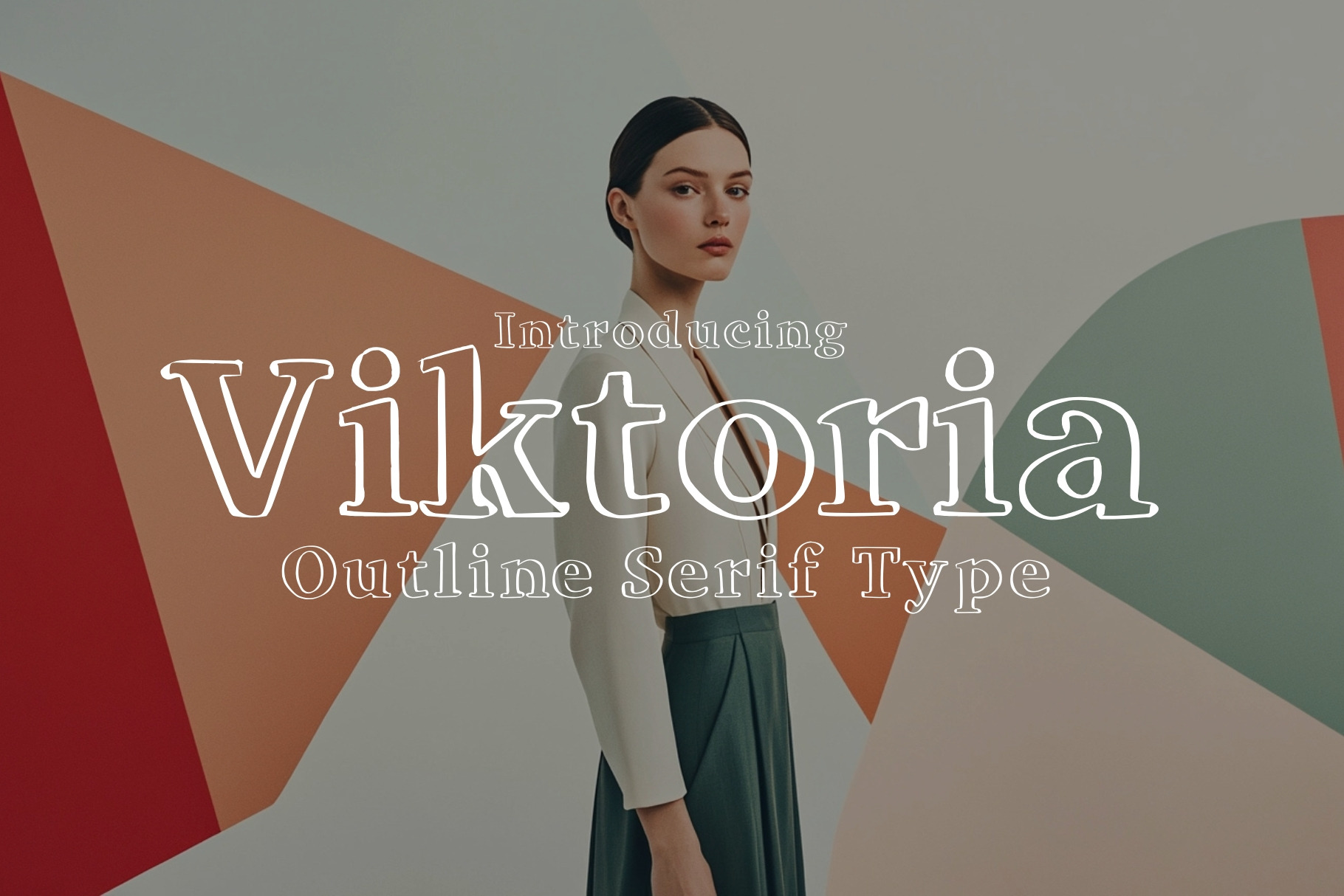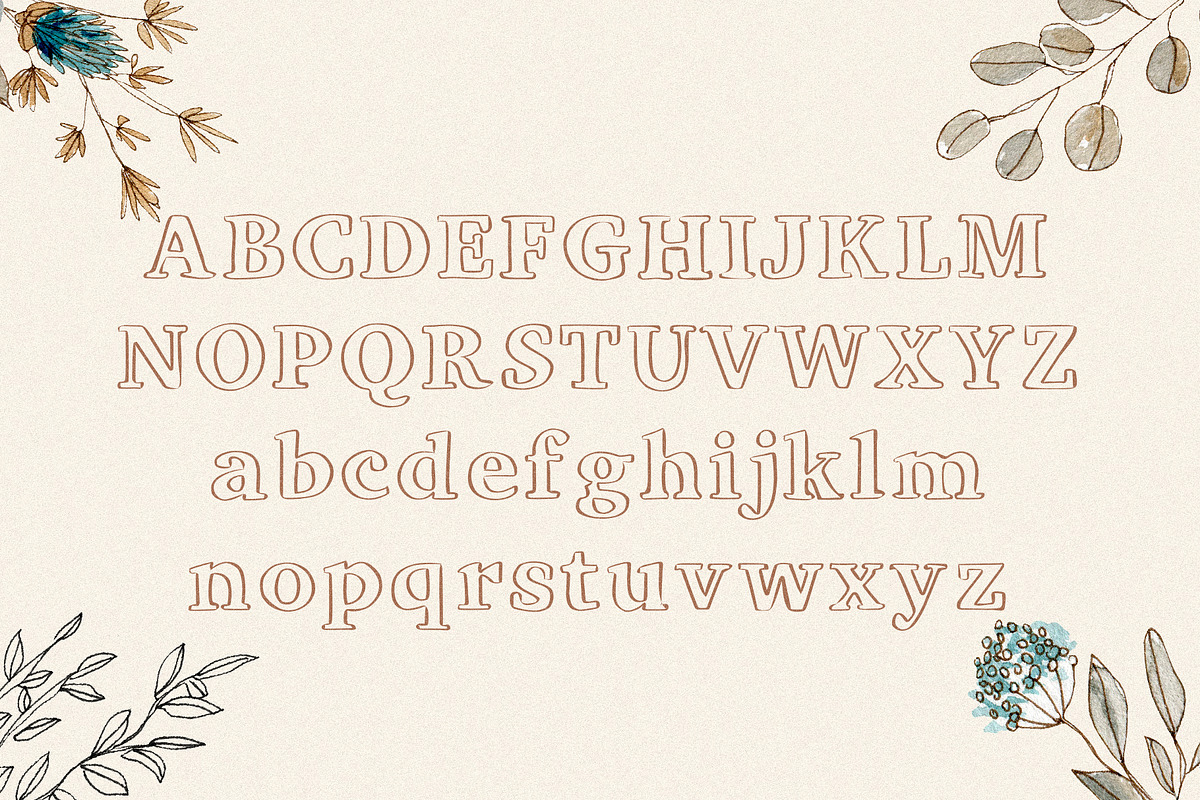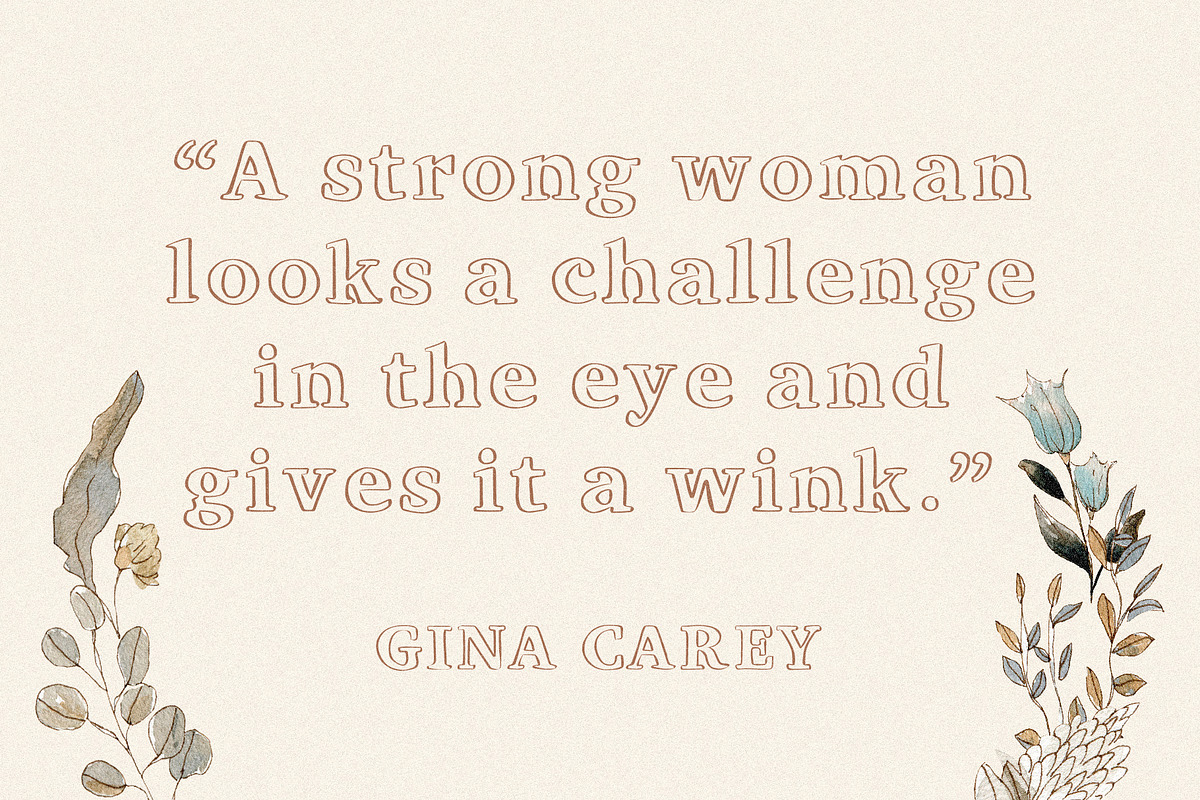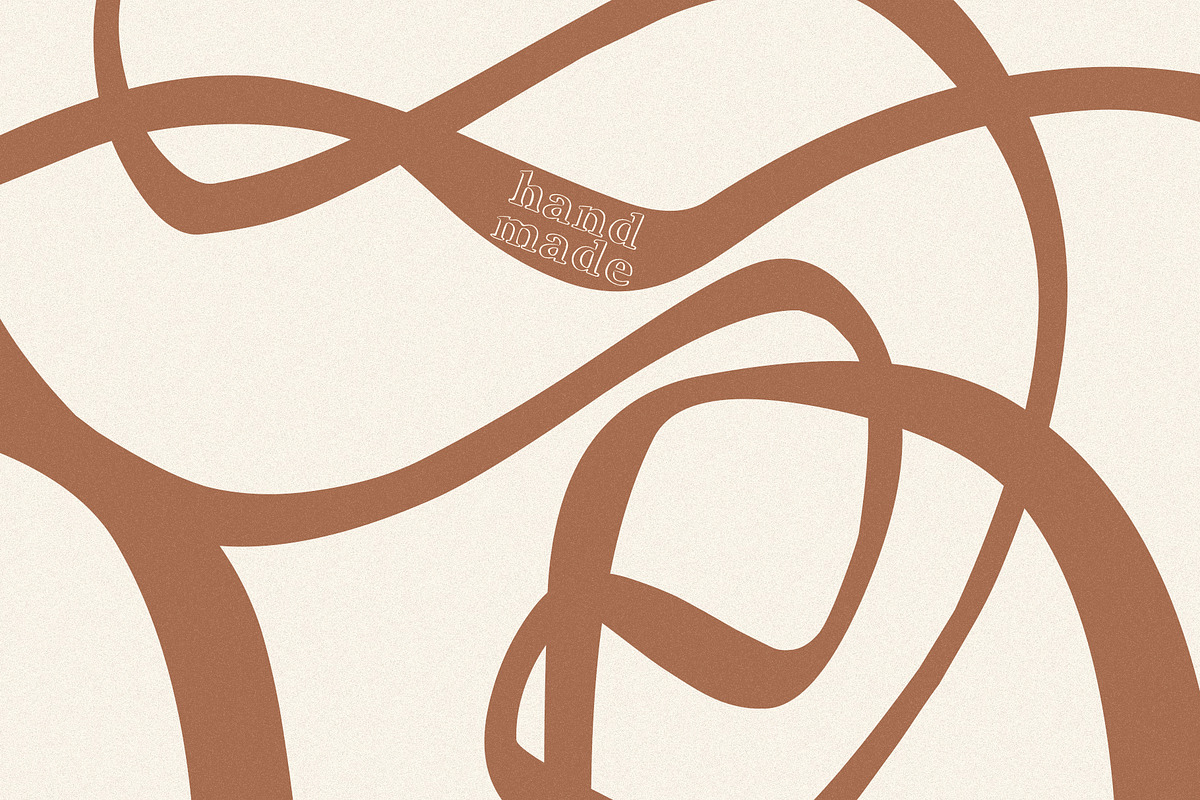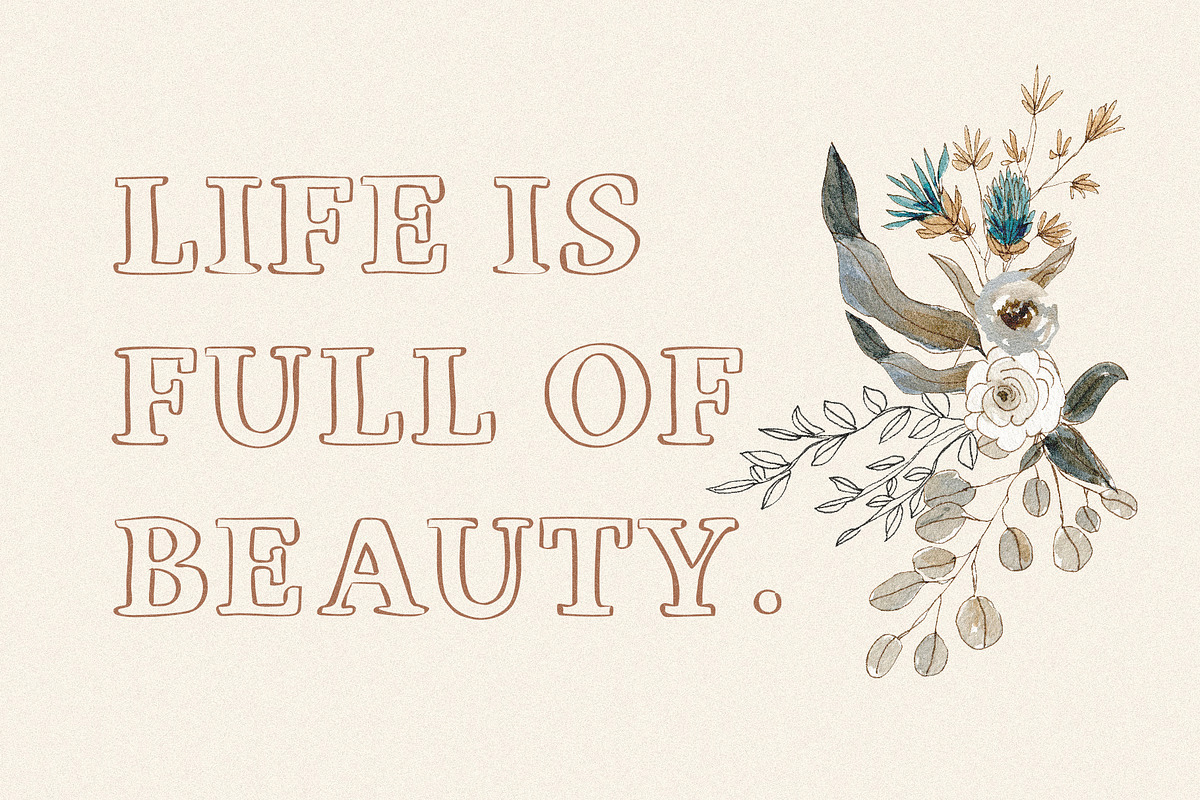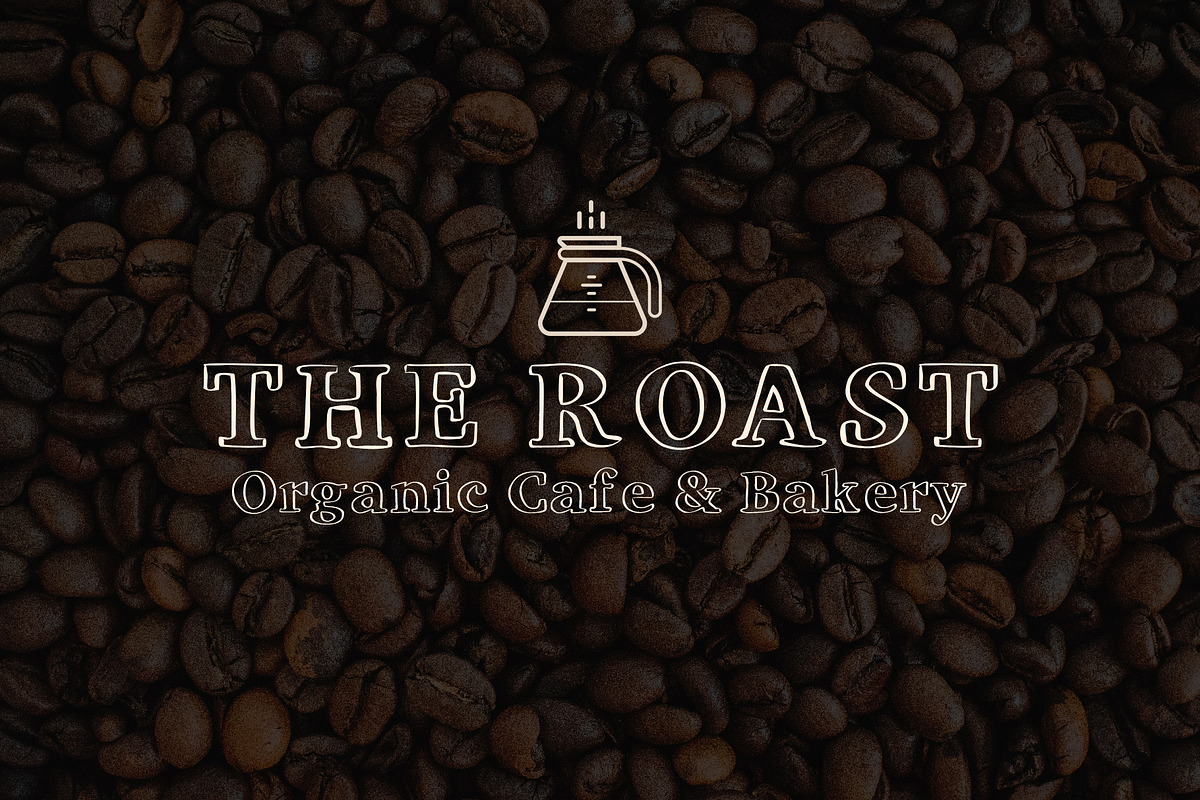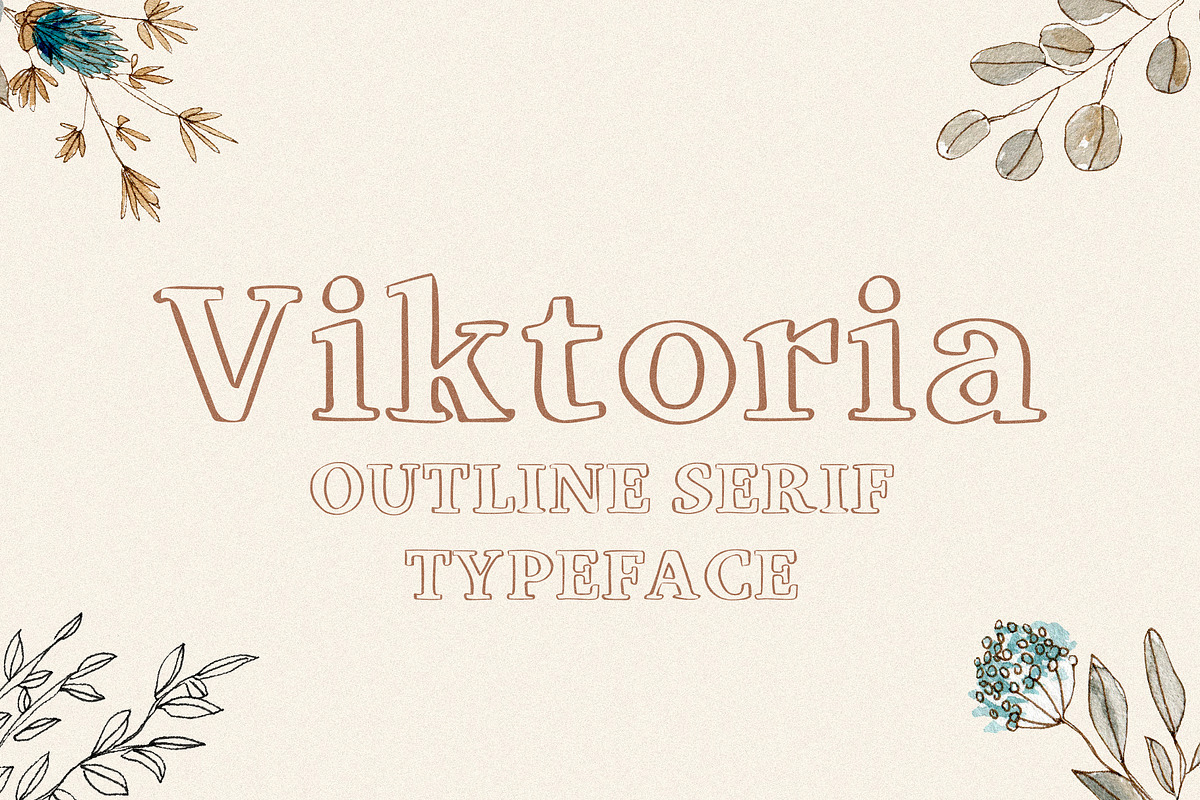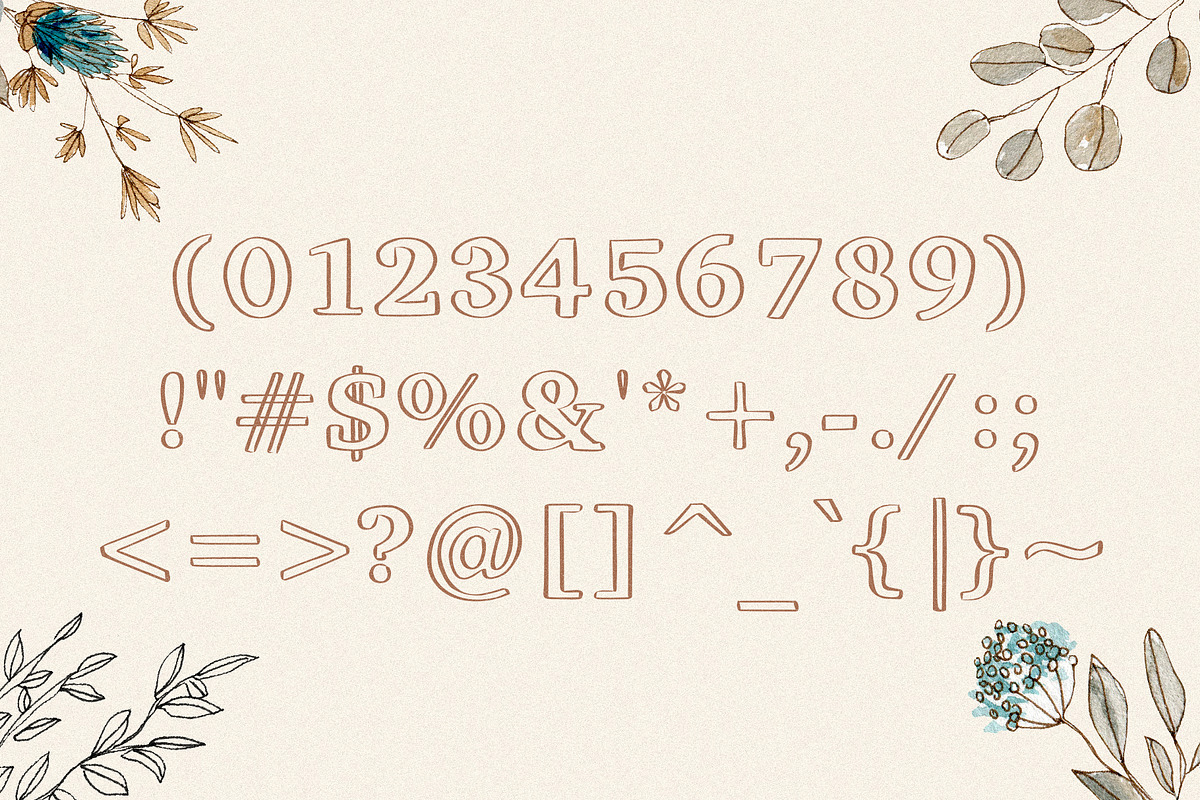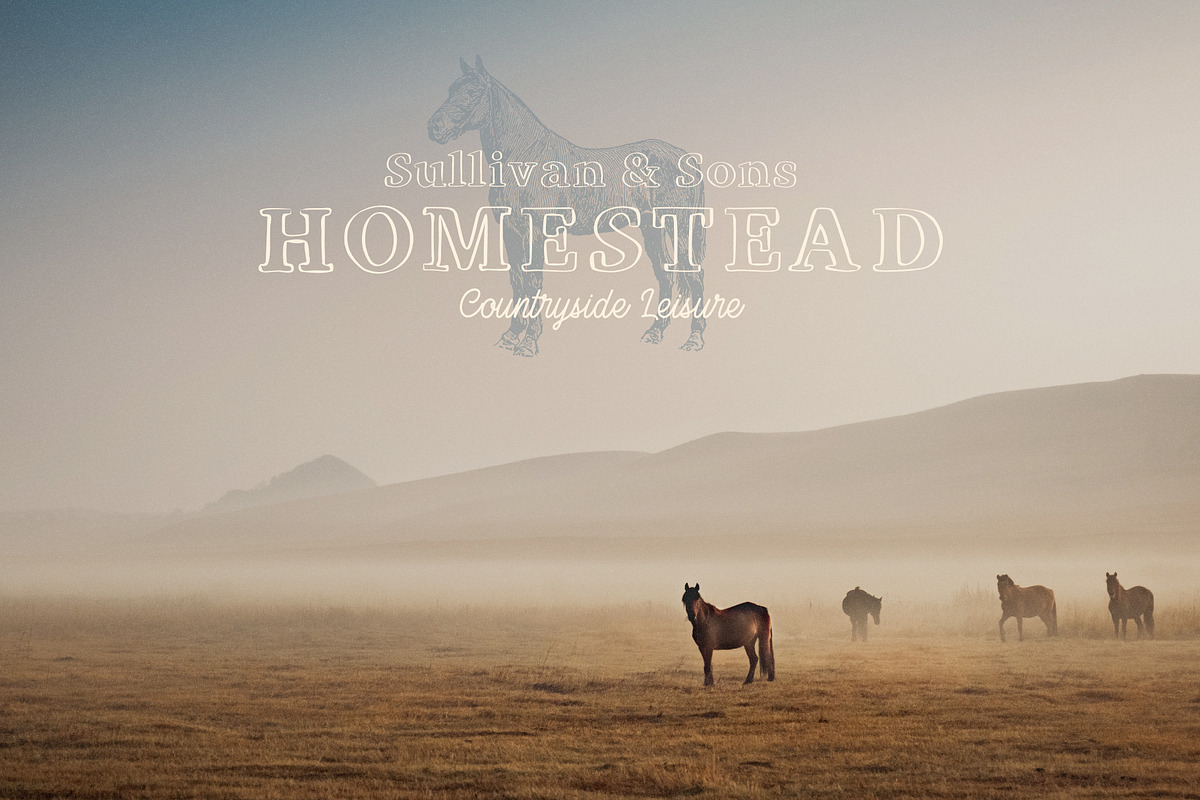
Viktoria - Outline Serif Typeface
Viktoria is a handmade outline serif typeface that's full of character. Numbers and punctuation are included as well as lowercase and capital letters. The airy/laidback vibe of the font is perfect for spring, summer, & fall projects. You can get really creative in terms of using this typeface.